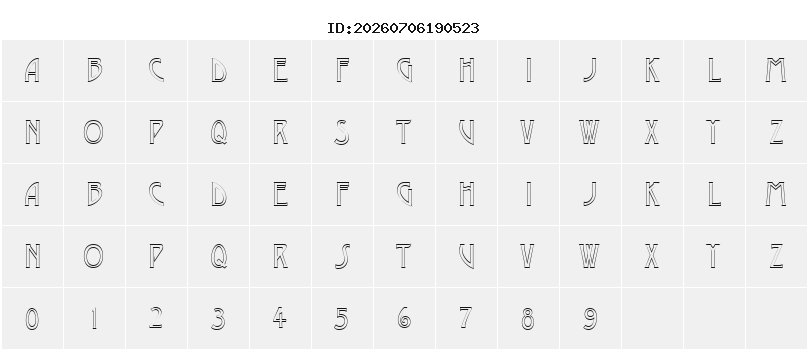
Desdemona Preview
• Font Name: Desdemona
• Full Font Name: Desdemona
• PostScript Name: Desdemona
About Desdemona.ttf
Desdemona.ttf is a modern, elegant sans-serif font designed for ultimate readability and visual harmony. Perfect for branding, headlines, web design, and print materials.